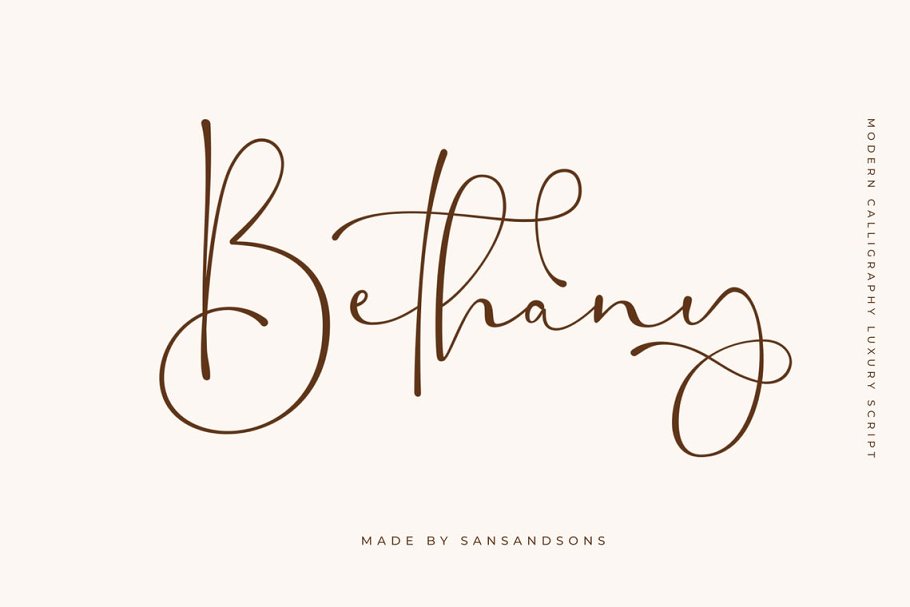
Introducing Bethany Script - Elegant Font, a stunning addition to your font collection that is sure to captivate and inspire. Created by the talented Angga Suwista, this font is perfect for those looking to add a touch of elegance and sophistication to their projects.
Bethany Script belongs to the script font family, offering a unique and stylish option for all your design needs. But what sets this font apart from the rest? Let's delve into its features and discover why it's a must-have for anyone in search of a font for signature word.
With a full set of uppercase and lowercase letters, Bethany Script allows for seamless versatility in creating beautiful typography. The inclusion of multilingual symbols, numerals, and punctuation further enhances its usability, ensuring that your message can reach a global audience.
But it doesn't stop there. Bethany Script also offers alternates, swashes, and ligatures, allowing you to add a touch of personality and creativity to your designs. Whether you're working on branding, logos, invitations, or masterheads, this font has you covered.
One of the standout features of Bethany Script is its organic smooth wet ink texture. This modern and elegant style adds depth and character to your designs, making them truly eye-catching. Your projects will stand out from the crowd, leaving a lasting impression on anyone who sees them.